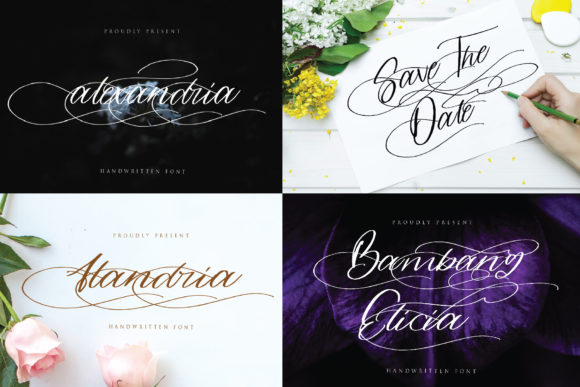
The Alandria Font: Elevate Your Designs with Elegance
I’ll never forget the time I was working on a project for a luxury brand, and I just couldn’t find the right font to match their high-end vibe. I scoured the internet, tried out countless fonts, but nothing seemed quite right. That was until I stumbled upon Alandria – an elegant and flowing handwritten font that instantly captured the essence of the brand. In this article, I’ll share my love for Alandria, its features, and how you can make the most of it in your designs.
A Personal Review: What I Love About Alandria
Alandria has quickly become one of my go-to fonts, and here’s why:
• ✨ Elegant and flowing script with a classy calligraphic feel
• 💫 Maintains a contemporary and fresh feel while being rooted in traditional calligraphy
• 🎨 Highly versatile and suitable for a wide range of design projects
While Alandria is an amazing font, there are a few things to keep in mind:
• 🤔 Some users may find the font a bit too ornate for certain projects
• ⚠️ May not be suitable for very small font sizes or body text
The Story Behind Alandria
Alandria was designed with the intention of creating a font that would evoke the elegance and sophistication of traditional calligraphy, while still feeling modern and fresh. The designer aimed to create a font that would be versatile and suitable for a wide range of design projects, from luxury branding to wedding invitations.
Is Alandria suitable for body text? While Alandria is a beautiful font, it may not be the best choice for body text due to its ornate nature. It’s better suited for headings and titles.
In conclusion, Alandria is an exceptional font that can elevate your designs to new heights. With its elegant and flowing script, PUA encoding, and versatility, it’s a must-have for any designer, crafter, or creative hobbyist. So why not give Alandria a try and see how it can transform your designs?